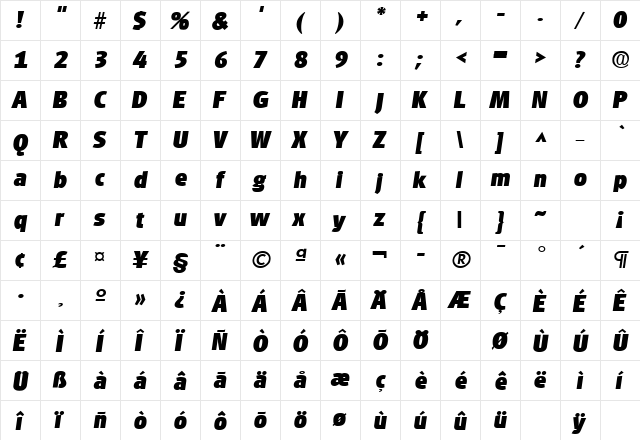
Goudita Sans Heavy SF Bold Italic
Design Context for Goudita Sans Heavy SF Typeface
Goudita Sans Heavy SF offers clean, dependable letterforms without strong stylistic allegiance, making it a practical choice for designers who need flexibility. The dynamic lean of this cut emphasises speed and emphasis in any layout. Its bold stroke weight gives it real presence on the page.
Pro Tip: Use Goudita Sans Heavy SF for emphasis, pull quotes, and subheadings where its slanted energy can add rhythm to the layout.